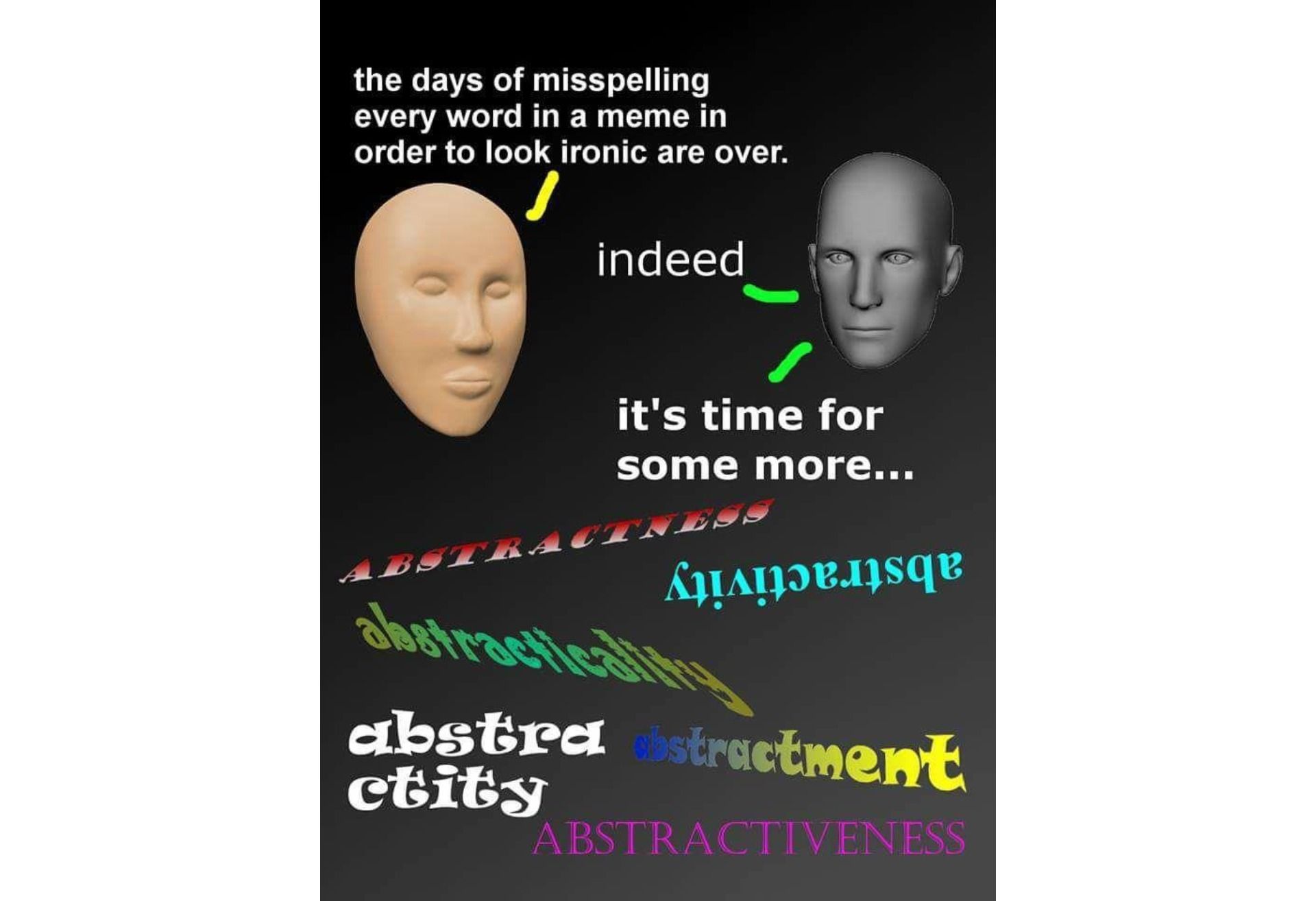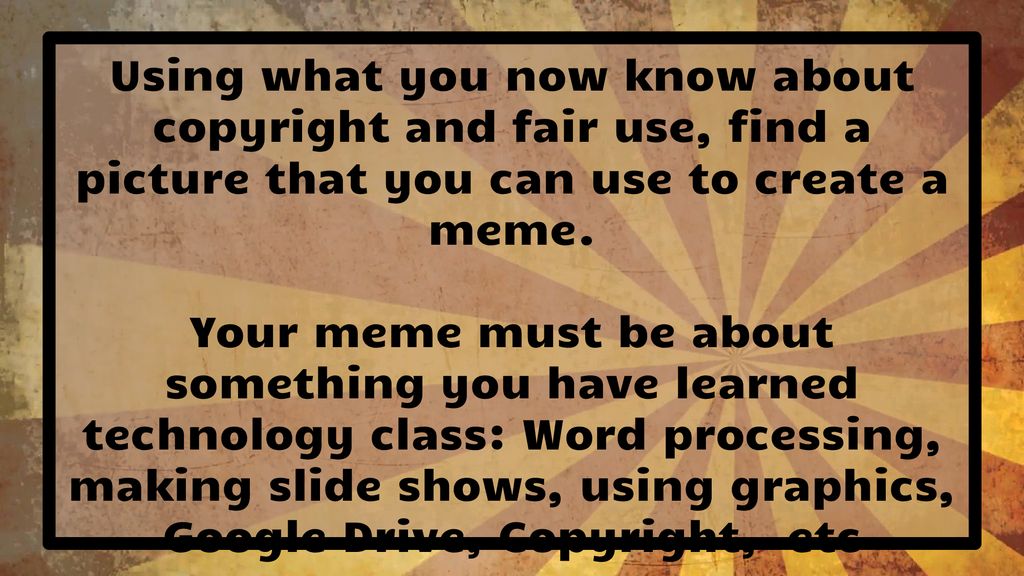
Elevate your google slides aesthetic with 10 perfectly paired font combinations. Font meme is a fonts & typography resource.
This is a collection of the best handwriting fonts from google fonts.
In the box that appears, enter the text to be transformed into 3d text and it will automatically appear on the scene. The text generator section features simple tools that let you create graphics with fonts of different styles as well as various text effects; The design is perfect for the occasion:
The fonts in use section features posts about fonts used in logos, films, tv shows, video games, books and more; Spectral comes in seven weights for all your typographical moods. Please note that google slides only supports fonts from google fonts.
Google has many special features to help you find exactly what you're looking for. We all love a good handwriting font for that warmth and “handmade” artisanal feel it brings to projects. Colorful, with a hand drawn font, and funny to watch because it is.
If you already have an object on the scene, make sure to select the face on which you want. While the font selection is at the discretion of the image maker the vast majority of internet meme pictures use impact font. A very simple way to choose the perfect icons to illustrate your presentation.
With its bold lettering and elegant curves, abril fatface is a serif inspired by the tilting fonts popularized in british and french ads and posters from the 19th century. The text generator section features simple tools that let you create graphics with fonts of different styles as well as various text effects; Once you’re done, click ok.
Google slides makes your ideas shine with a variety of presentation themes, hundreds of fonts, embedded video, animations, and more. Ever since, the font has defined the mainstream meme style, from “y u no” to the captions of your favorite spongebob image macro. Backup & sync tool, chrome os.
To add fonts new fonts, just click their names. Today the type team’s mission is to make sophisticated and even experimental typefaces that explore the possibilities of design and technology. What pops up might look familiar.
The most comprehensive image search on the web. The fonts in use section features posts about fonts used in logos, films, tv shows, video games, books and more; It’s a fantastic resource but, with so many fonts on offer, finding the ones you want to.
For a more vintage/classic or elegant look, check out the elegant script fonts and for a modern look, check out the modern script fonts. How to add the google fonts plugin in vectary. (a small minority use arial and an even smaller minority use comic sans.)
Help your little students learn the days of the week in a funny way with this template full of doodles and games! Impact font is the “classic” meme font. I don't see anything that is related to font size so i haven't done anything.
You'll see that when we select another text box and come back up to the fonts menu the selected font. Somehow i made the font size so small in my google drive that i can't read the names of my files. One of the most effective ways to pair fonts is by combining a traditional serif with a more modern sans serif—like this google font combination, abril fatface and lato.